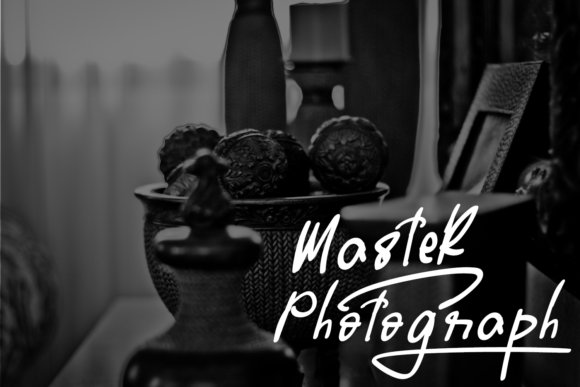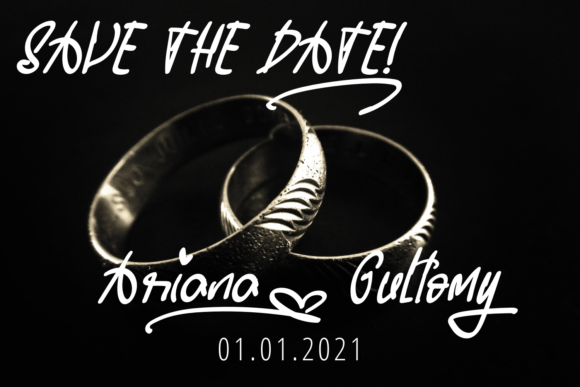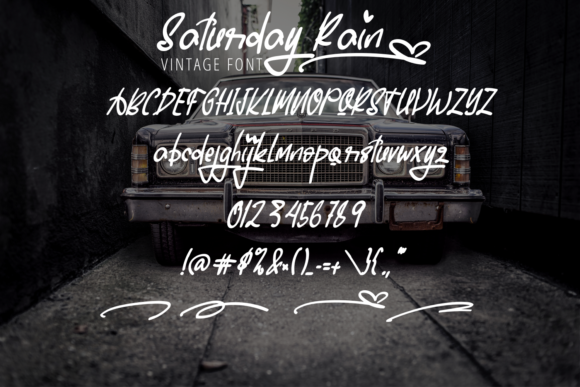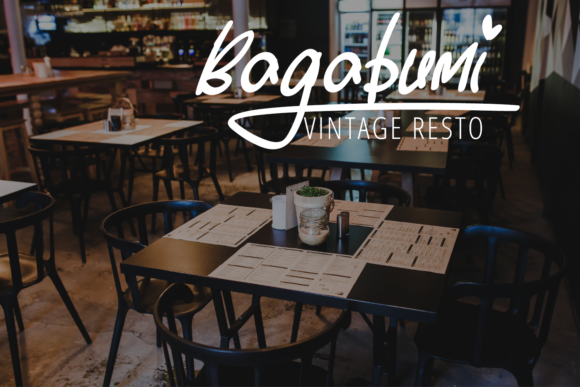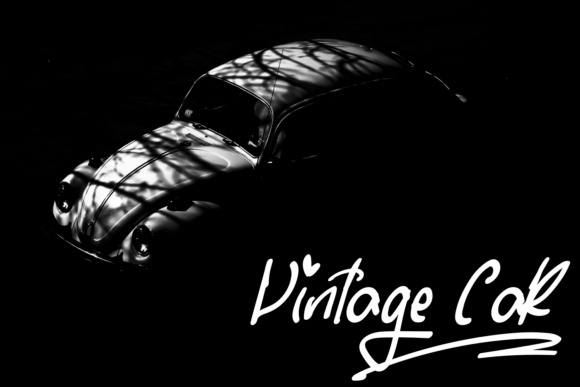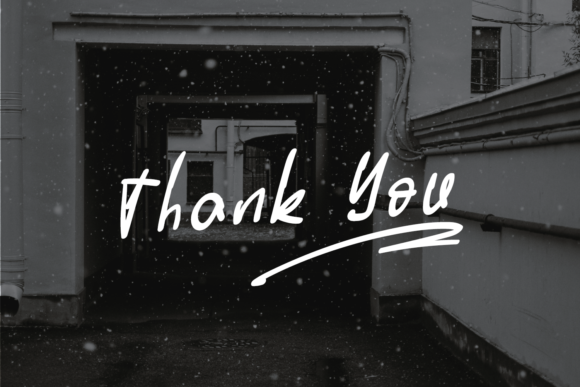
About Saturday Rain Font
Saturday Rain is a stylish and delicate font. It has a clean, thin and smooth vibe and it will be a hit for any design that you want to add it to.